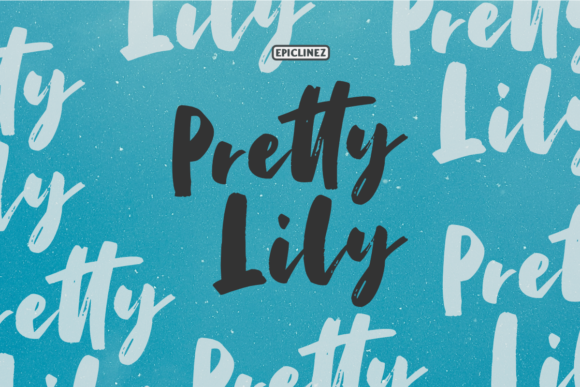
Step into the world of captivating design with Pretty Lily Font, a masterpiece meticulously crafted with the stroke of a brush pen. Each letter dances across your screen, bringing a vibrant energy to your creative endeavors. With its cool and urban style, Pretty Lily Font is the epitome of modern typography, ready to elevate your designs to new heights.
Unleash your imagination and create eye-catching logos that command attention. The flowing lines and dynamic curves of Pretty Lily Font will make your brand stand out from the crowd, leaving an unforgettable impression on your audience. It's the perfect choice for branding that exudes personality and style.
But Pretty Lily Font's versatility doesn't end there. It's also a master of transforming ordinary quotes into extraordinary works of art. Whether you're crafting inspiring messages for social media or designing stunning prints, Pretty Lily Font will add a touch of sophistication and charm to your words.